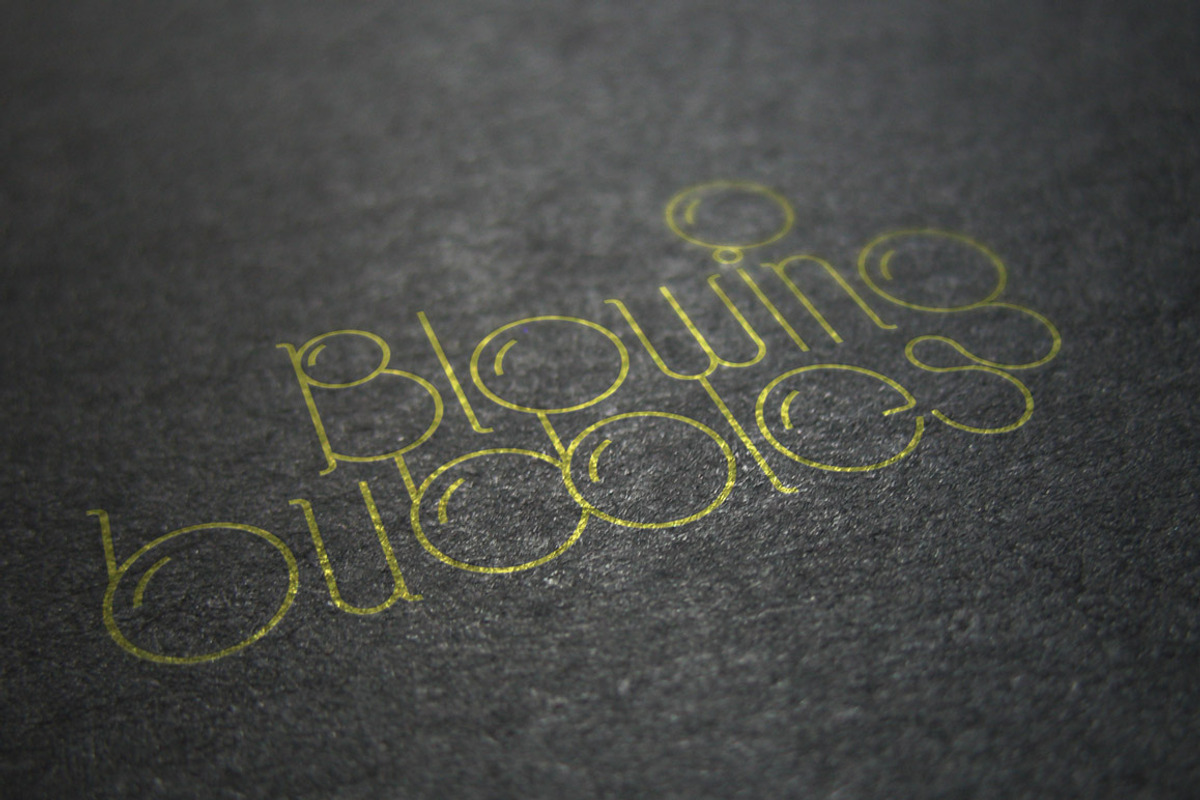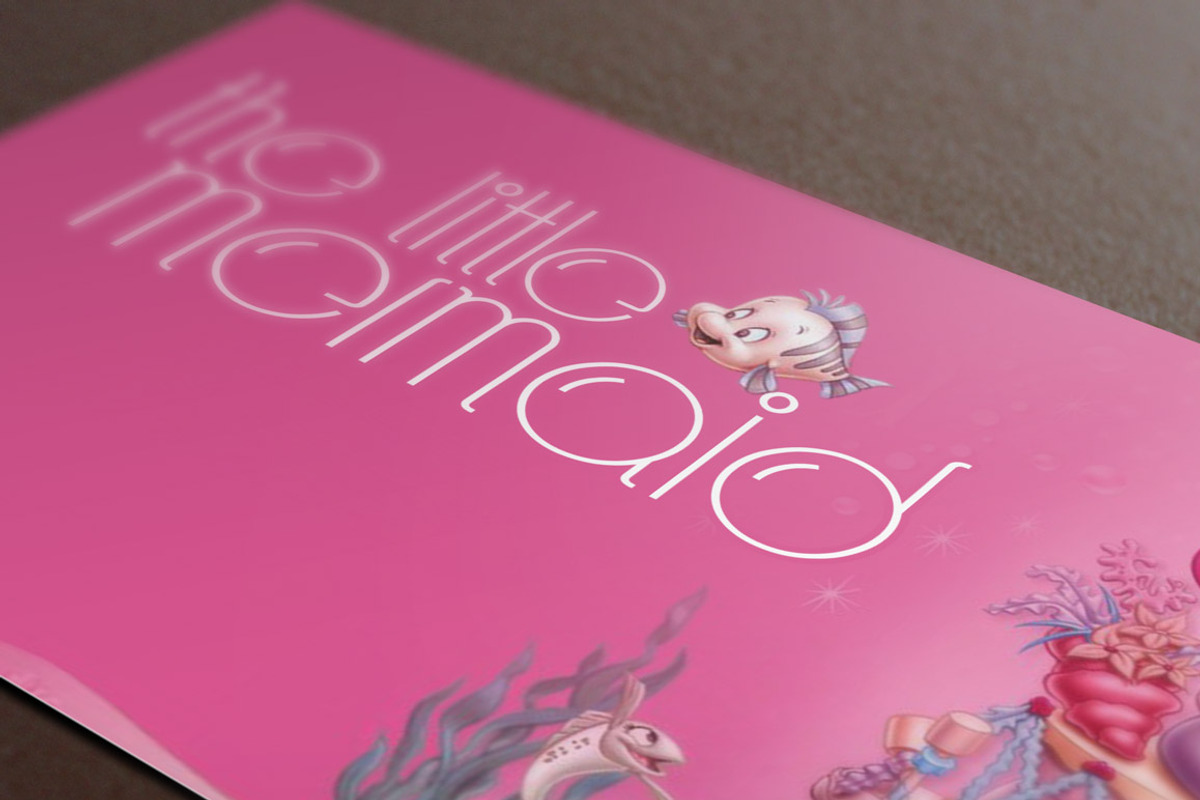
Bubble Typeface
Bubble Typeface by alphadesign is a font selected for branding, posters, packaging, typography.
Why Bubble Typeface is worth a look
Bubble Typeface by alphadesign fits naturally into Branding, posters, packaging, typography.